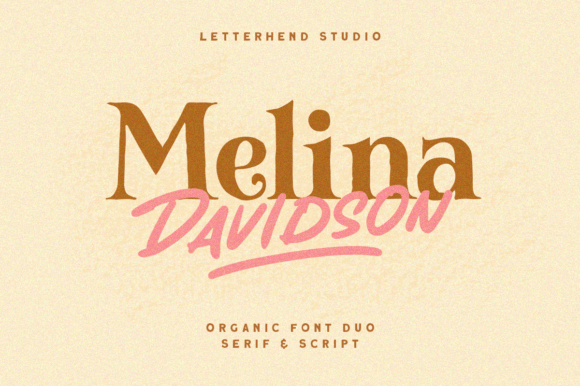
Embrace the Enchanting Allure of Melina Davidson Font: Your Key to Captivating Visual Expressions
Step into the world of Melina Davidson, a font duo that exudes elegance and charm. This exquisite collection combines a graceful serif font with an organic script, creating a harmonious blend that elevates your designs to new heights.
Crafted with meticulous attention to detail, Melina Davidson Font is a visual masterpiece designed to leave a lasting impression. Its serif font, with its delicate curves and refined details, adds a touch of sophistication to your headlines, display text, and logotypes. The accompanying script font, with its flowing lines and playful charm, brings a touch of whimsical beauty to your designs.
Unleash your creativity and explore the endless possibilities that await you with Melina Davidson Font. Express yourself with confidence, knowing that your words will be adorned with a touch of timeless elegance. Whether you're crafting logos, invitations, labels, magazines, books, greeting cards, packaging, fashion designs, makeup branding, stationery, novels, or any other form of visual communication, Melina Davidson Font will transform your ideas into stunning realities.
Step into the world of Melina Davidson Font today and unlock a world of creative possibilities. Experience the joy of crafting designs that captivate, inspire, and leave an everlasting mark. With its versatility and timeless appeal, Melina Davidson Font is the perfect choice for designers, artists, and creative professionals seeking to make a lasting impression.